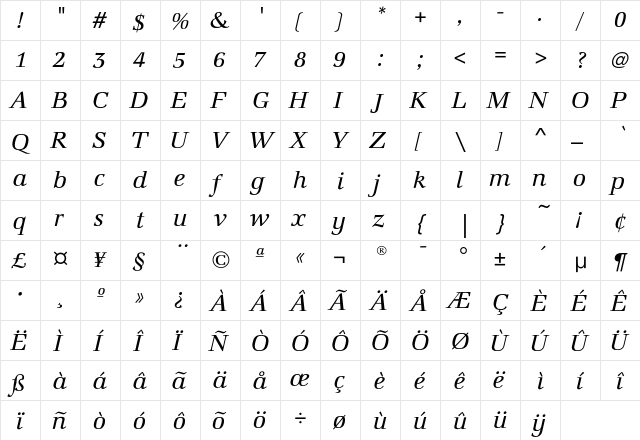
MarconiEF-BookItalic Regular Font Preview
MarconiEF-BookItalic Regular
Design Context for MarconiEF-BookItalic Typeface
MarconiEF-BookItalic offers clean, dependable letterforms without strong stylistic allegiance, making it a practical choice for designers who need flexibility. The dynamic lean of this cut emphasises speed and emphasis in any layout.
Pro Tip: Use MarconiEF-BookItalic for emphasis, pull quotes, and subheadings where its slanted energy can add rhythm to the layout.